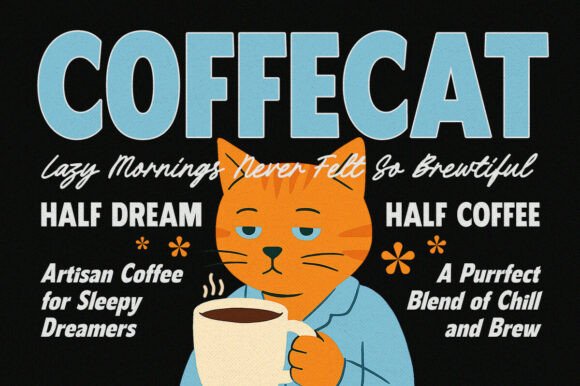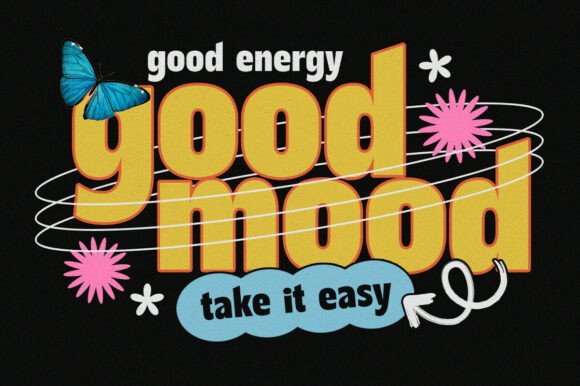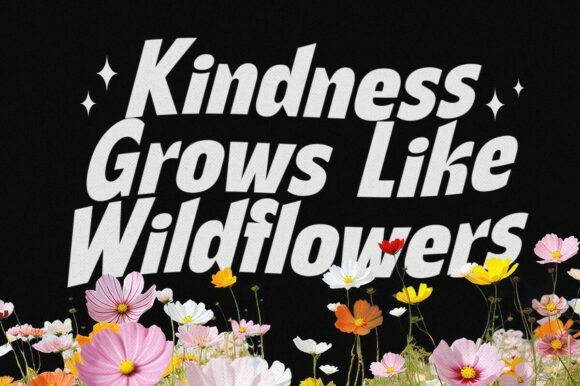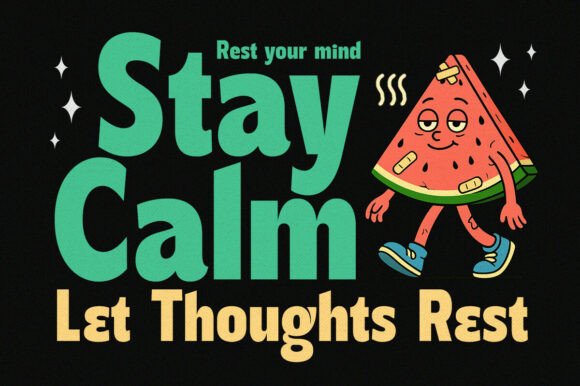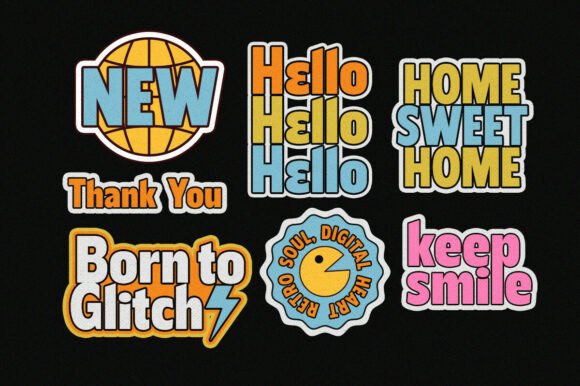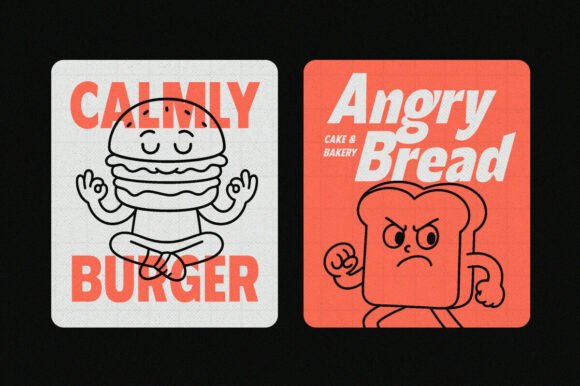
Introduction to Bellforge Font
Bellforge – Bold Sans Serif Typeface Bellforge is a powerful and bold sans serif typeface made for standout designs.
Available in both regular and slanted styles, it combines clean geometric shapes with retro-modern aesthetics This typeface is perfect for posters, branding, album covers, tech packaging, and editorial layouts.
Key Features of Bellforge Font
Why Choose Bellforge Font?